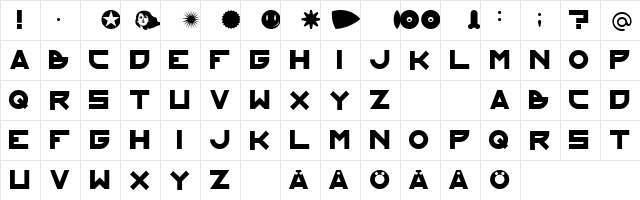
KraftUndStil Regular
Design Context for KraftUndStil Typeface
KraftUndStil offers clean, dependable letterforms without strong stylistic allegiance, making it a practical choice for designers who need flexibility.
Pro Tip: Use KraftUndStil in both headline and body roles to test its range before committing to a single application.